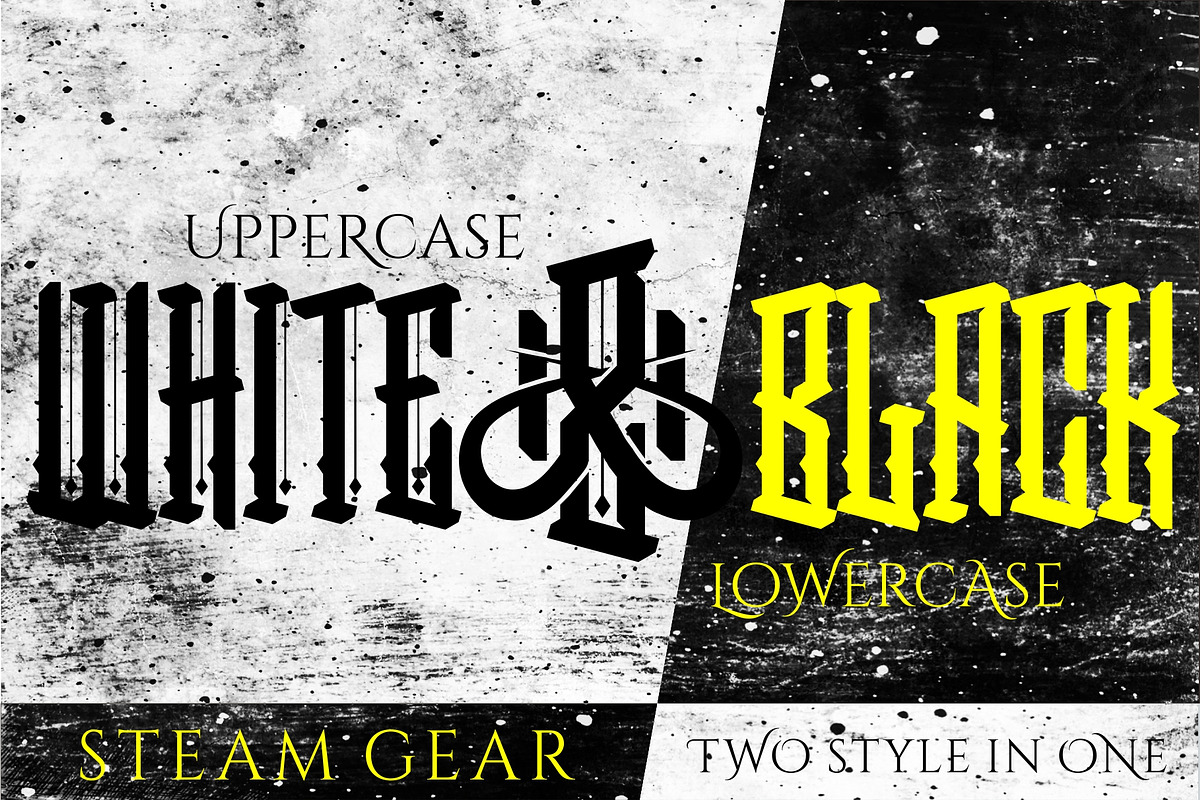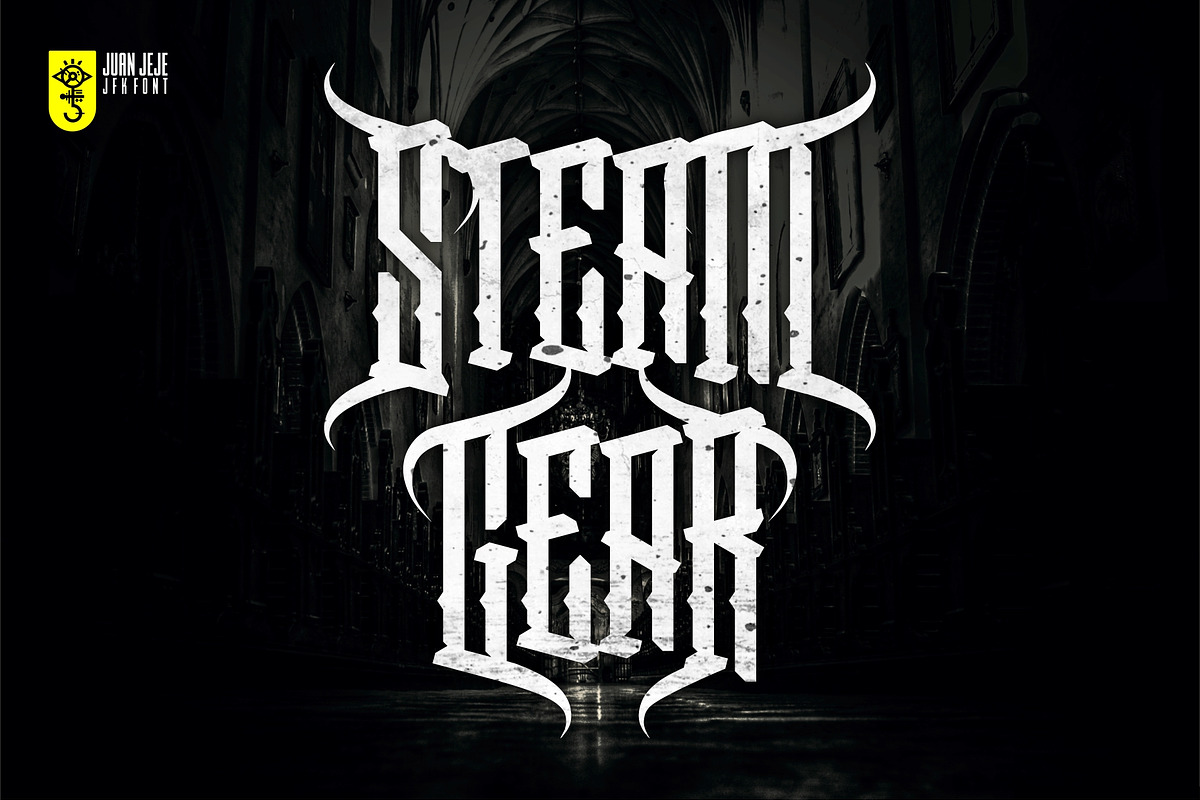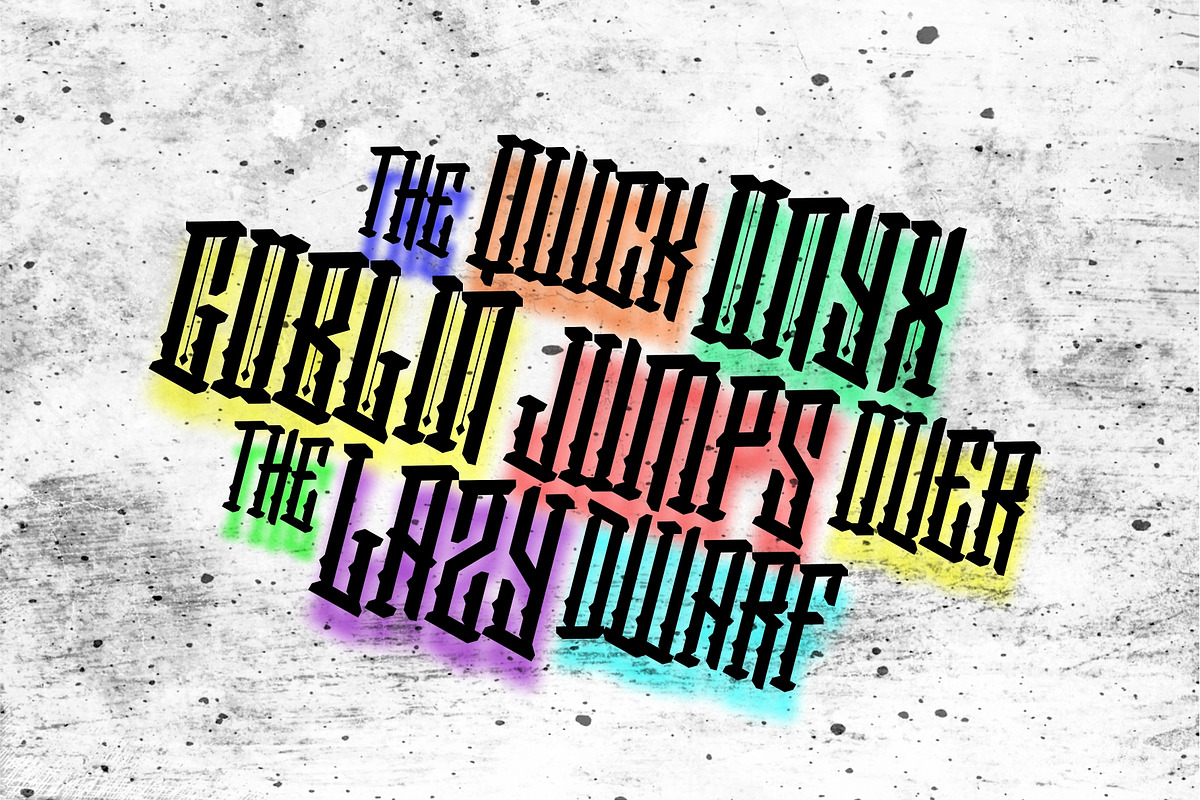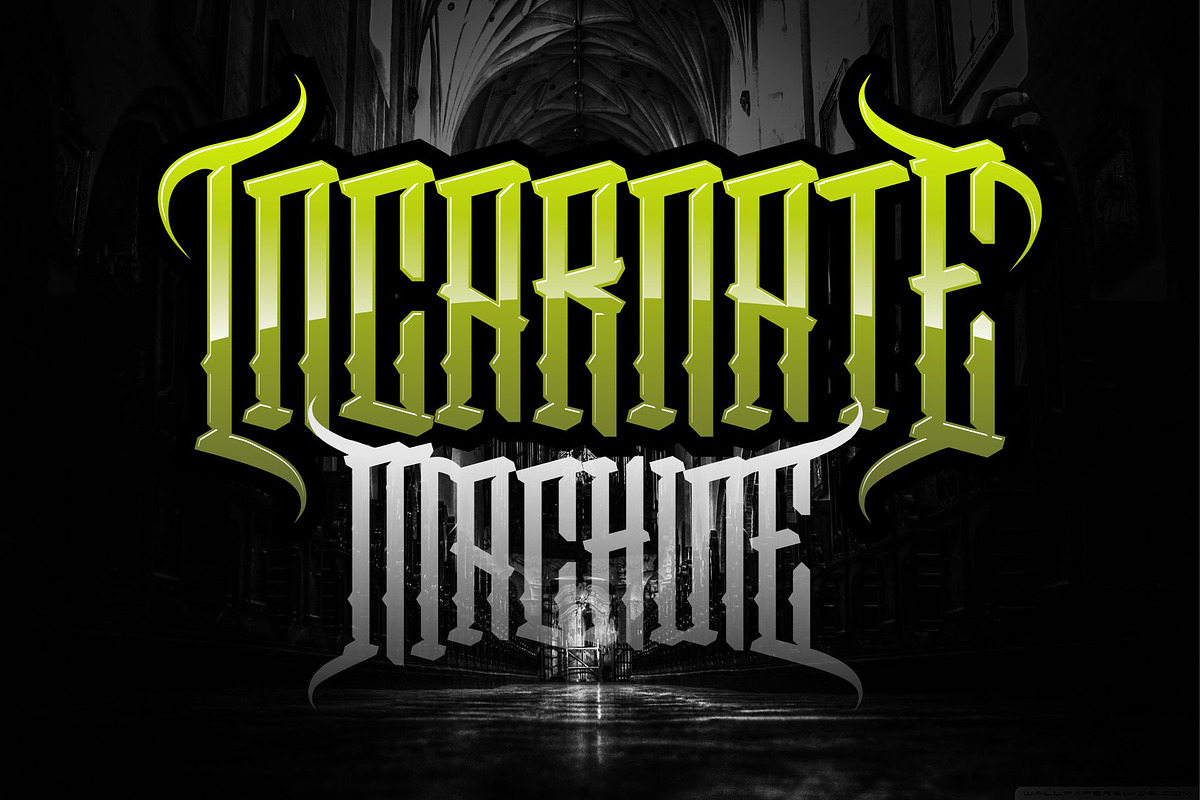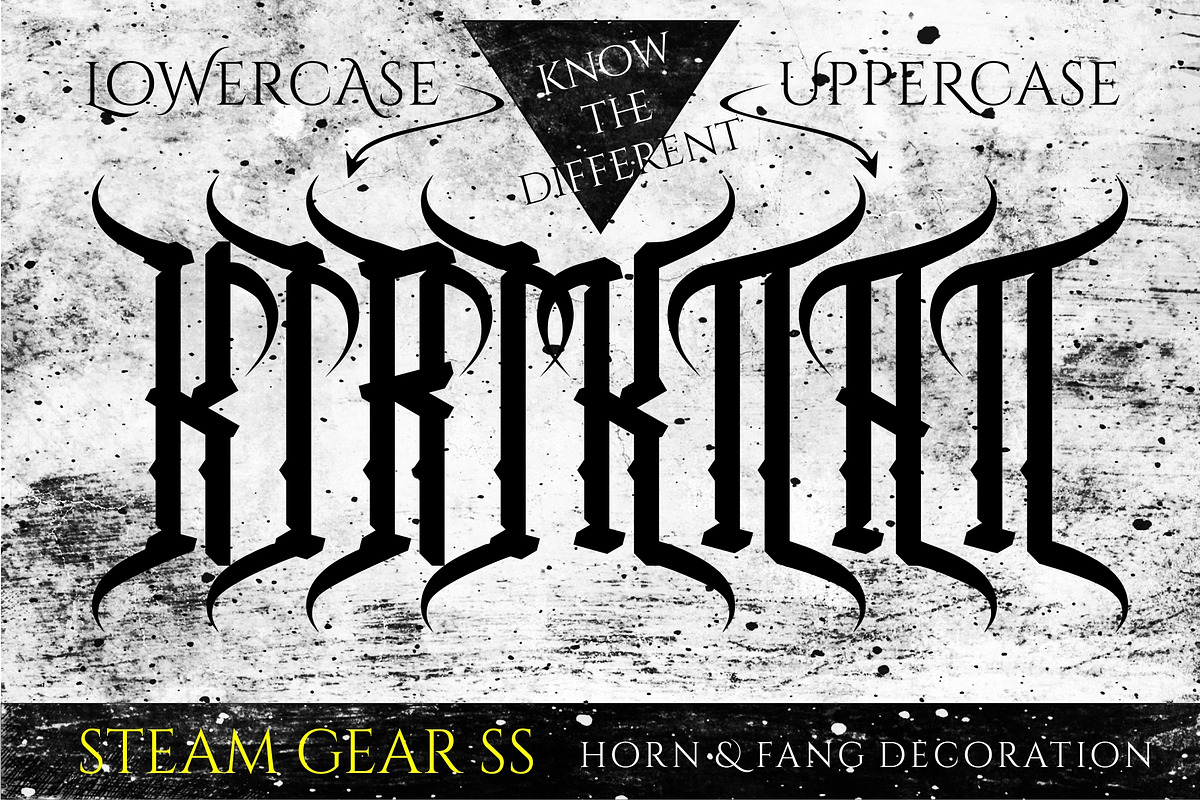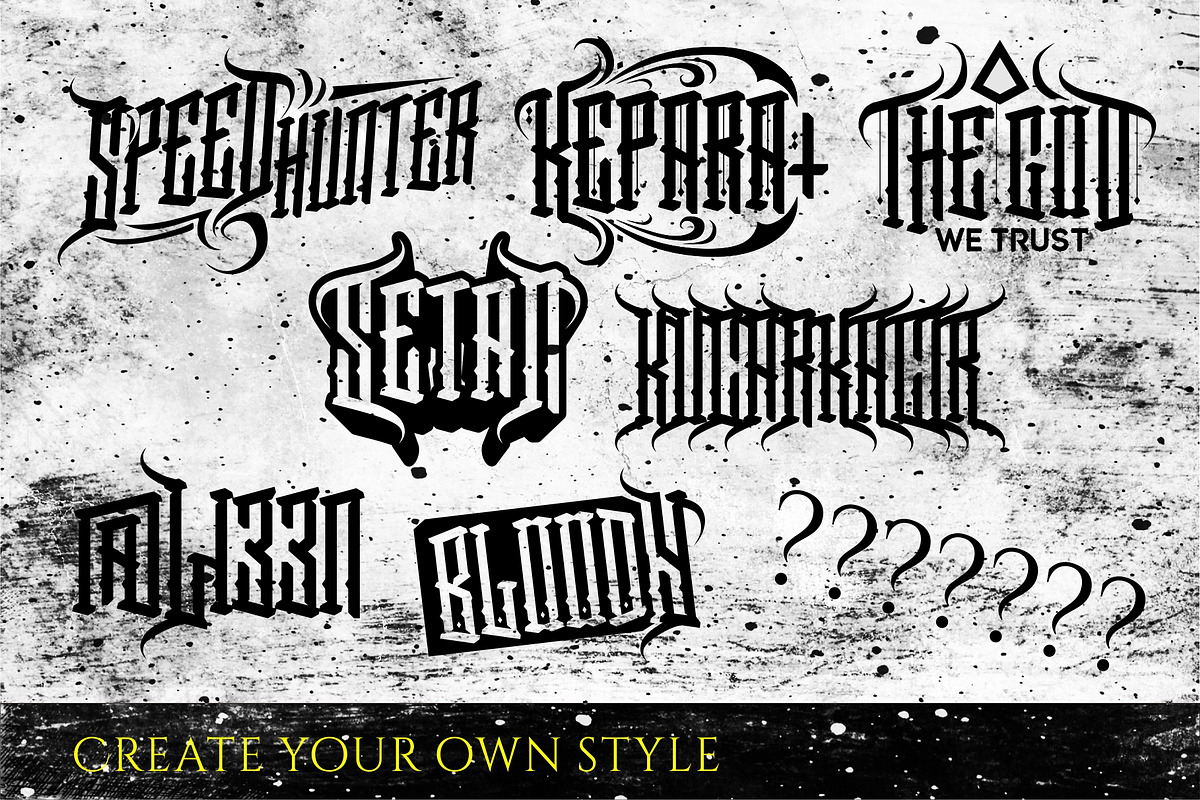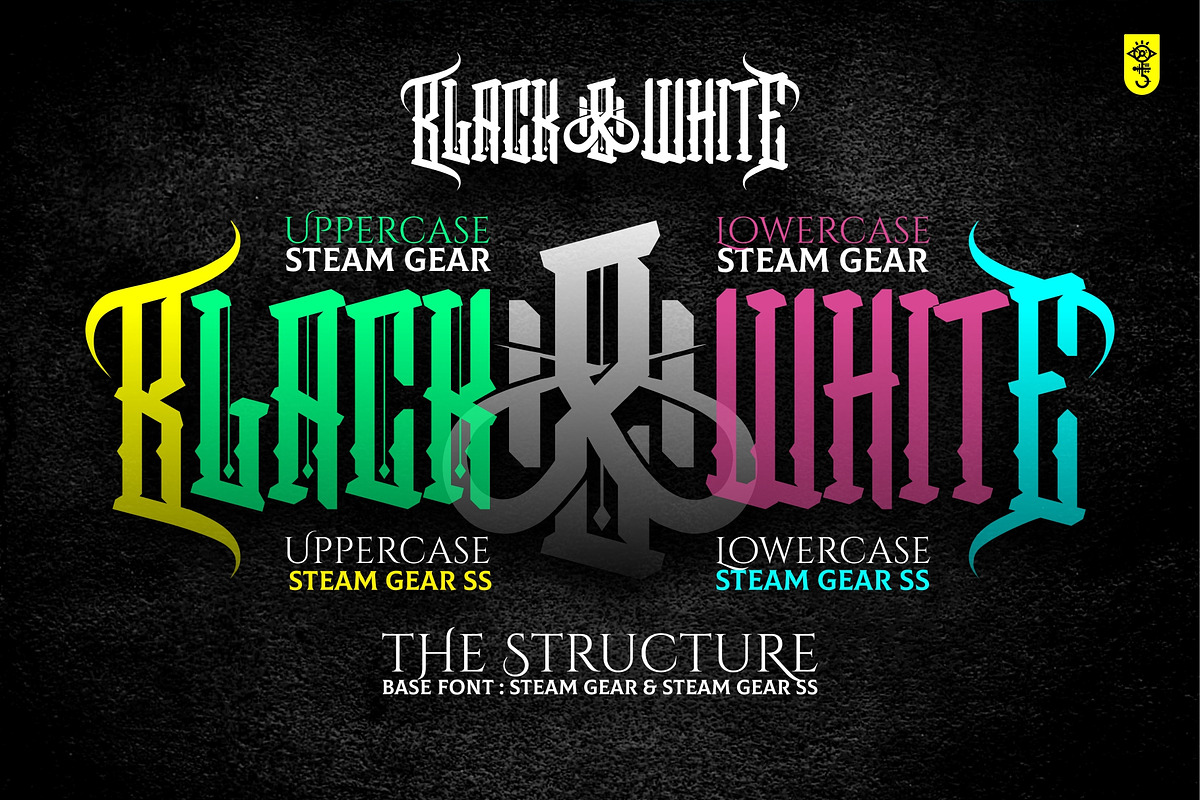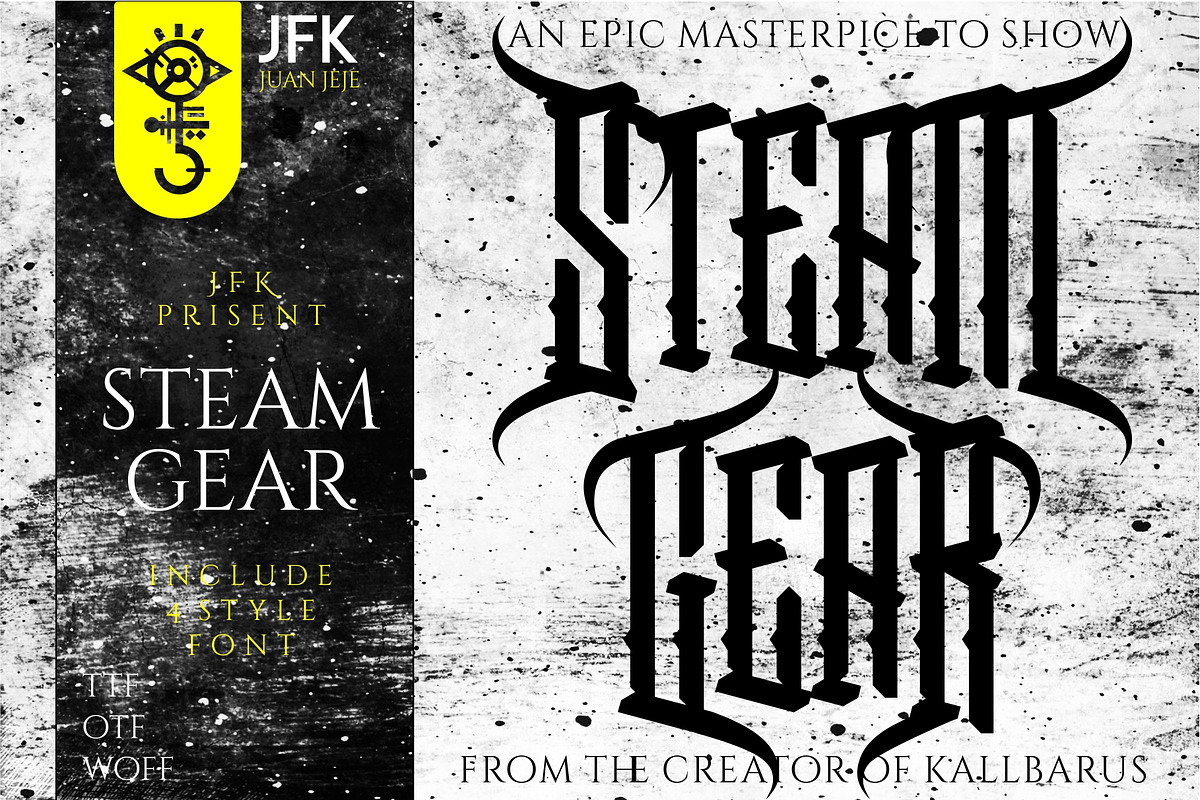
Steam Gear (Duo Font) SS
Steam Gear is an epic gothic fonts in base modern futuristic black letter combine with simple swashes in every side (left and right)
2 fonts (steam gear and steam gear ss)
4 style (reguler, middle line, and horn fang for left and right )